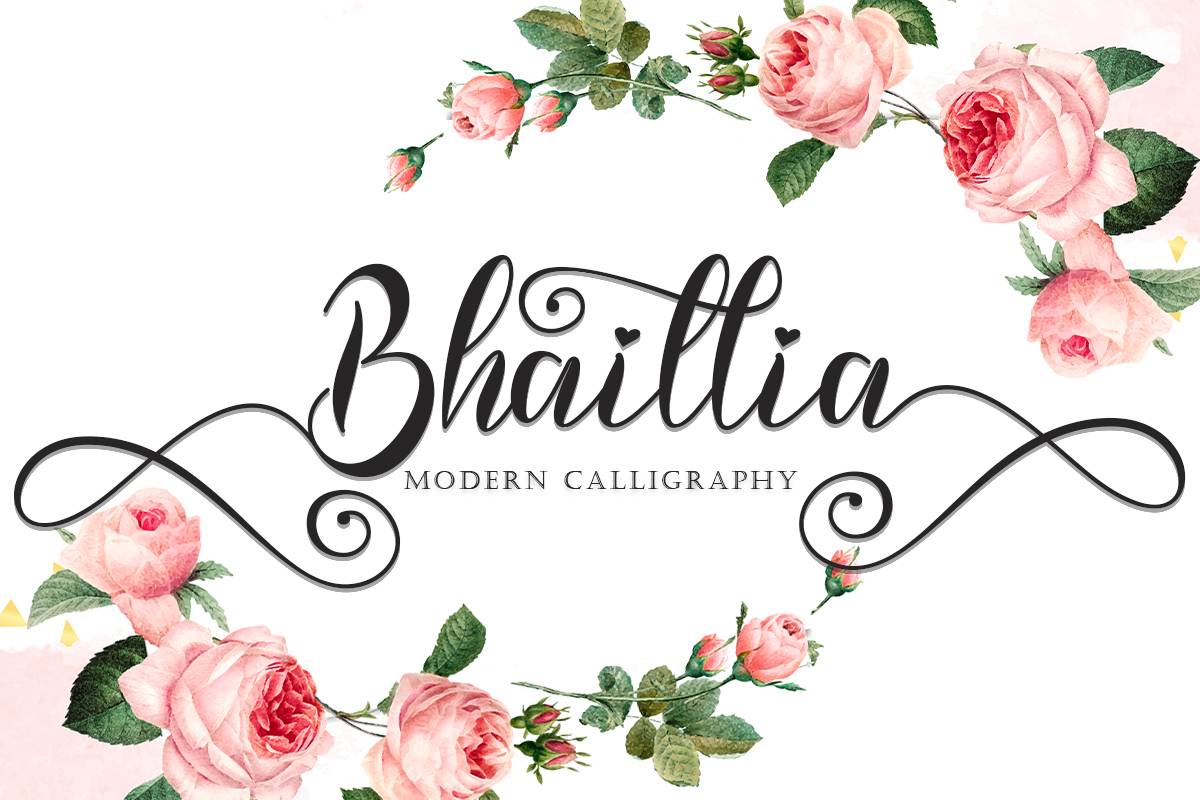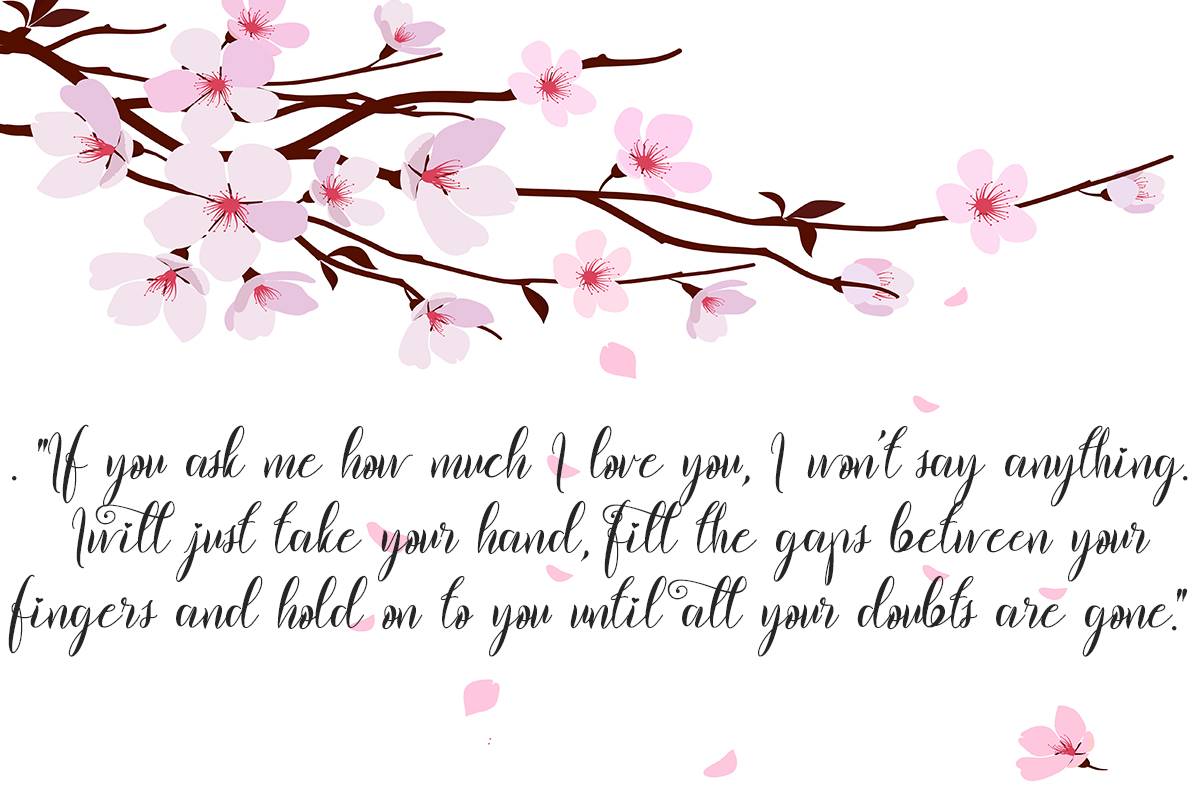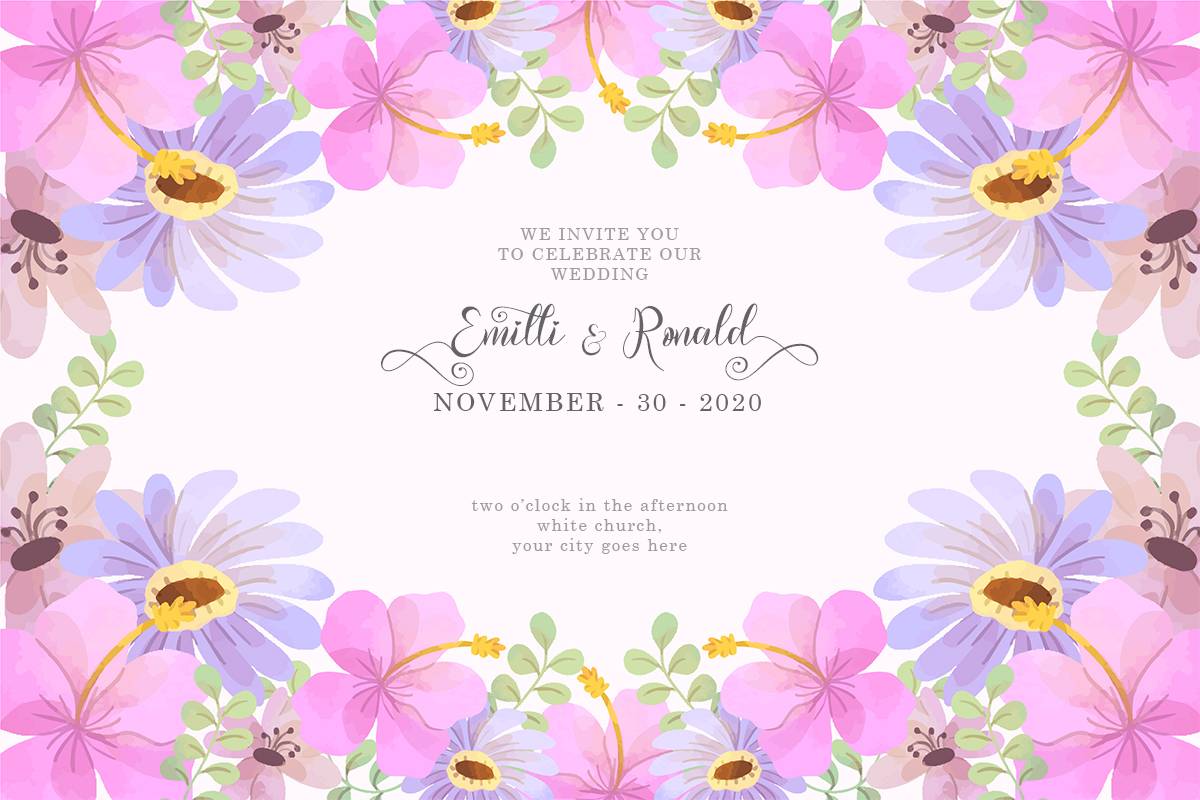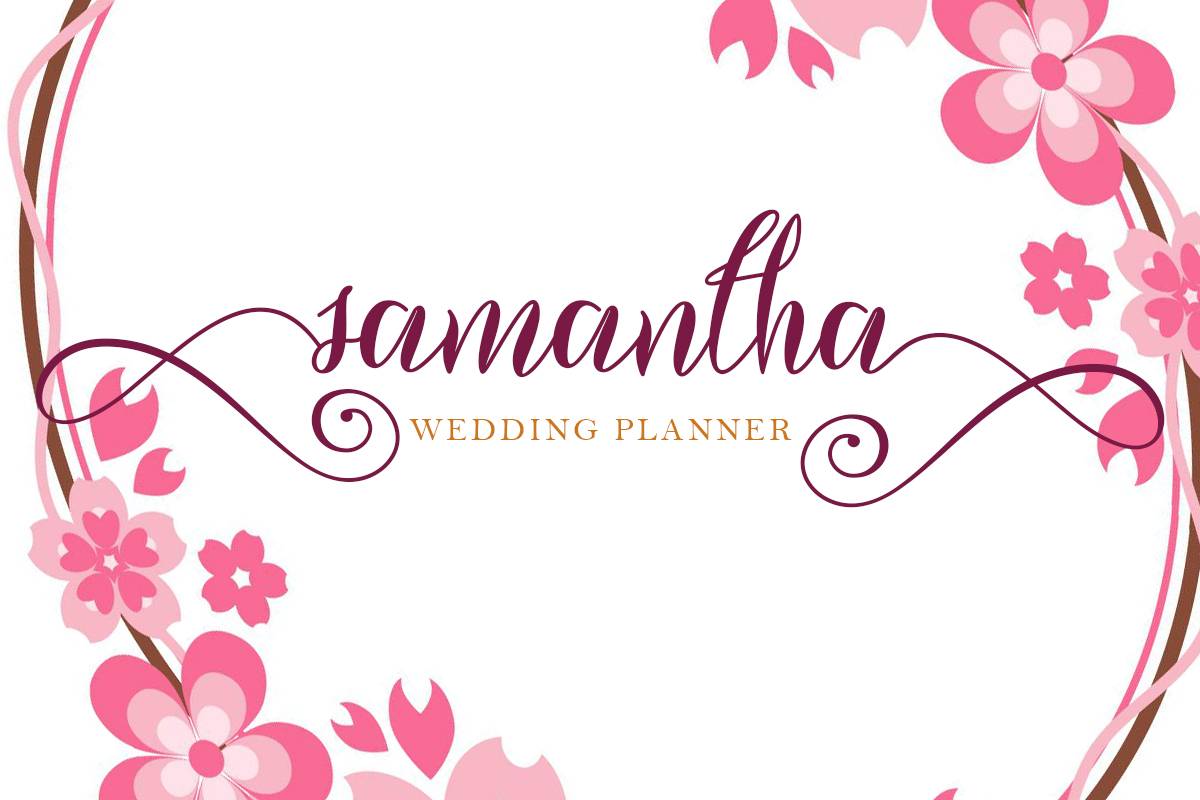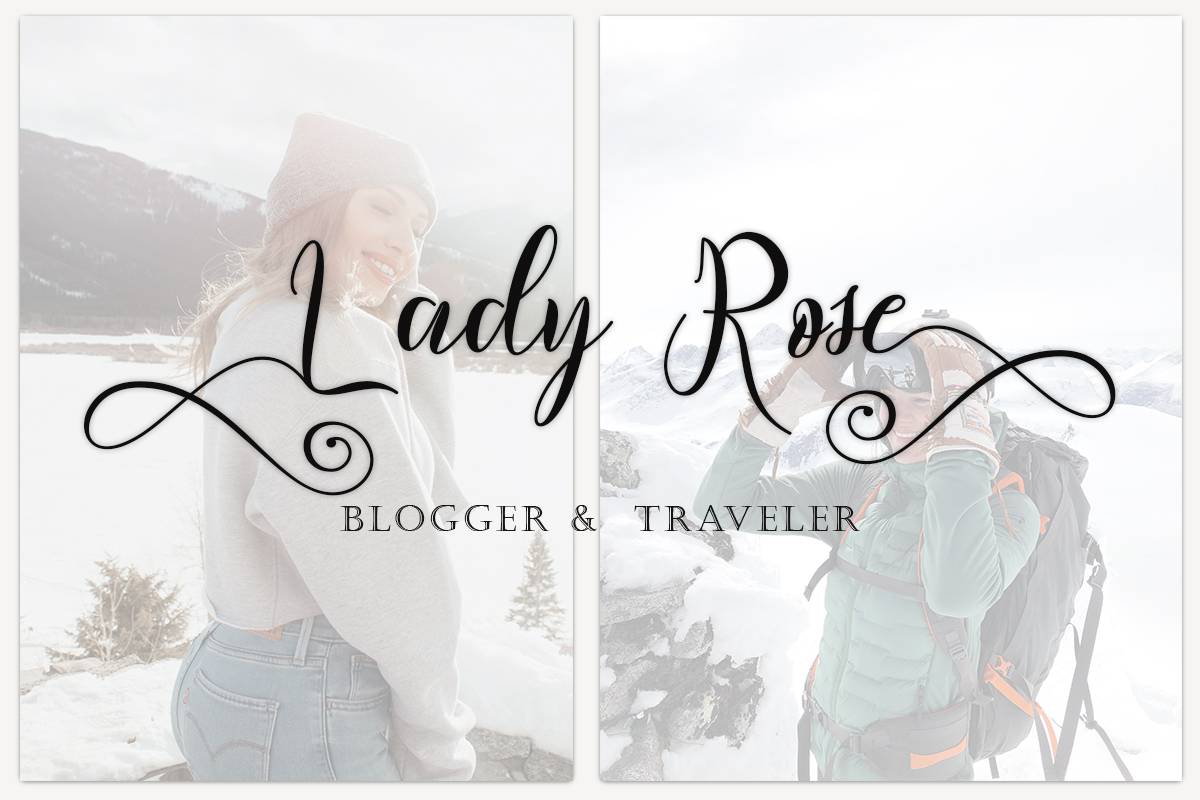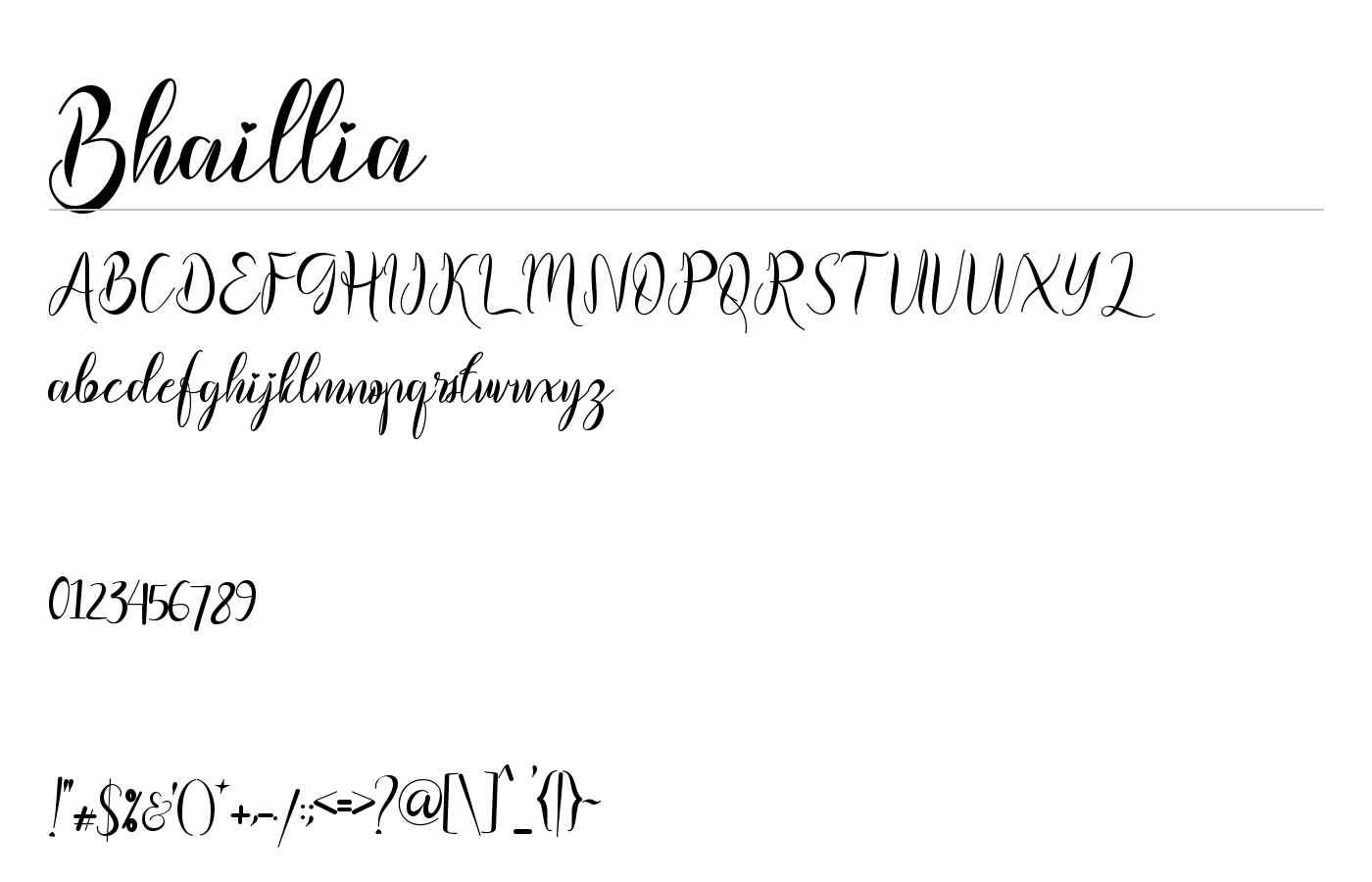
Bhaillia is a delicate script font with elegant, flowing strokes that combine a feminine charm with a modern touch. Its thin, graceful lines and subtle heart-shaped details create a romantic and stylish feel, making it ideal for wedding invitations, fashion branding, and feminine product packaging. This font works best for decorative uses, logos, and headlines where a soft, sophisticated vibe is desired.
| Font family | Bhaillia Font |
| Release date | 2020-11-03 |
| Designer | Yogaletter 2020 (Isroni Yoga Prasetya) |